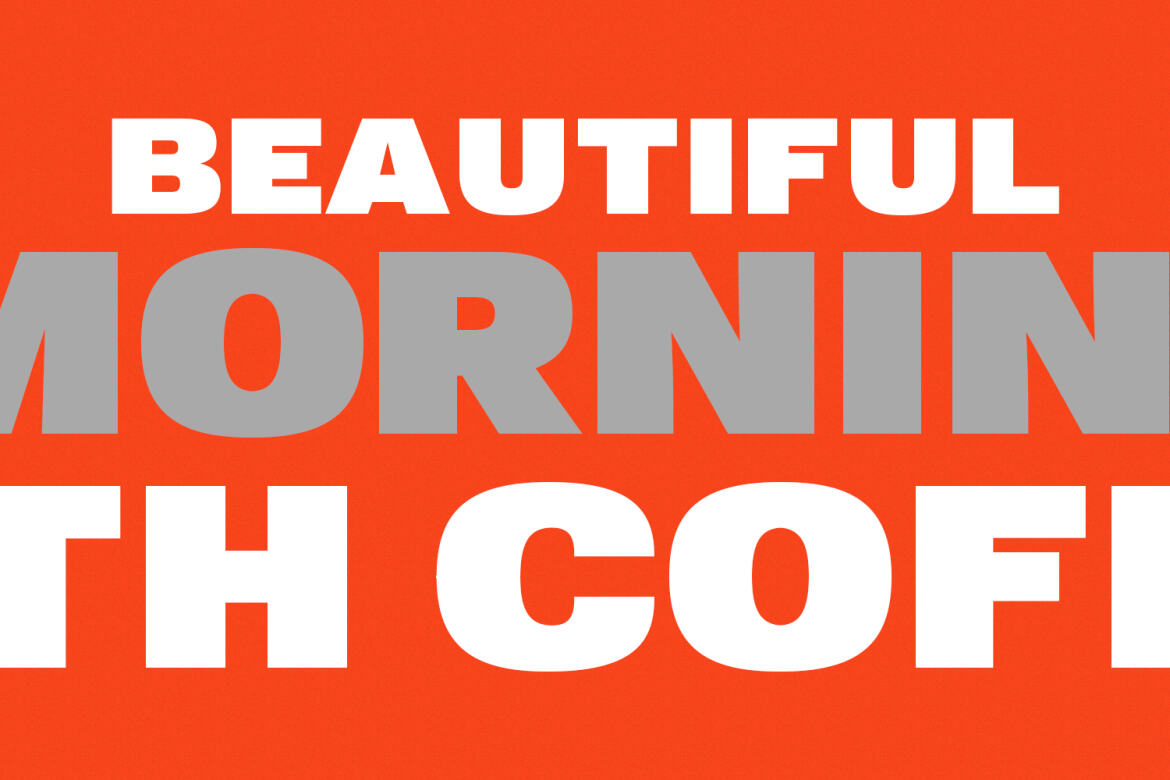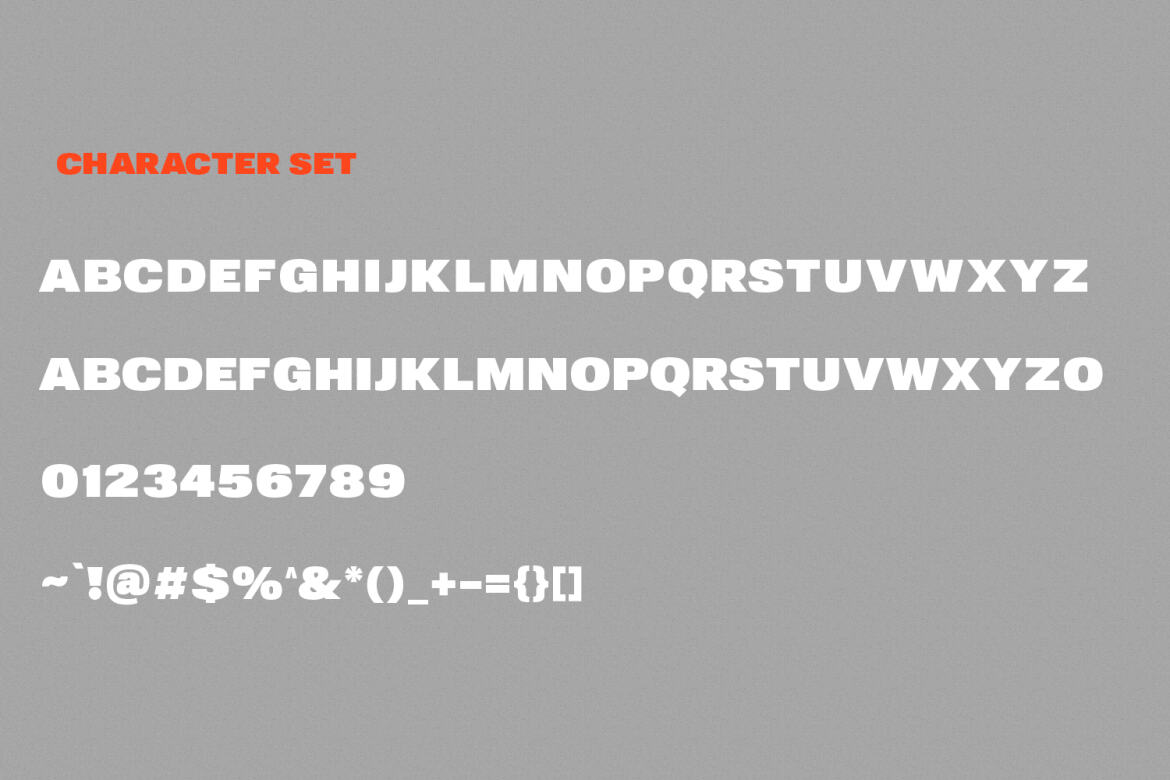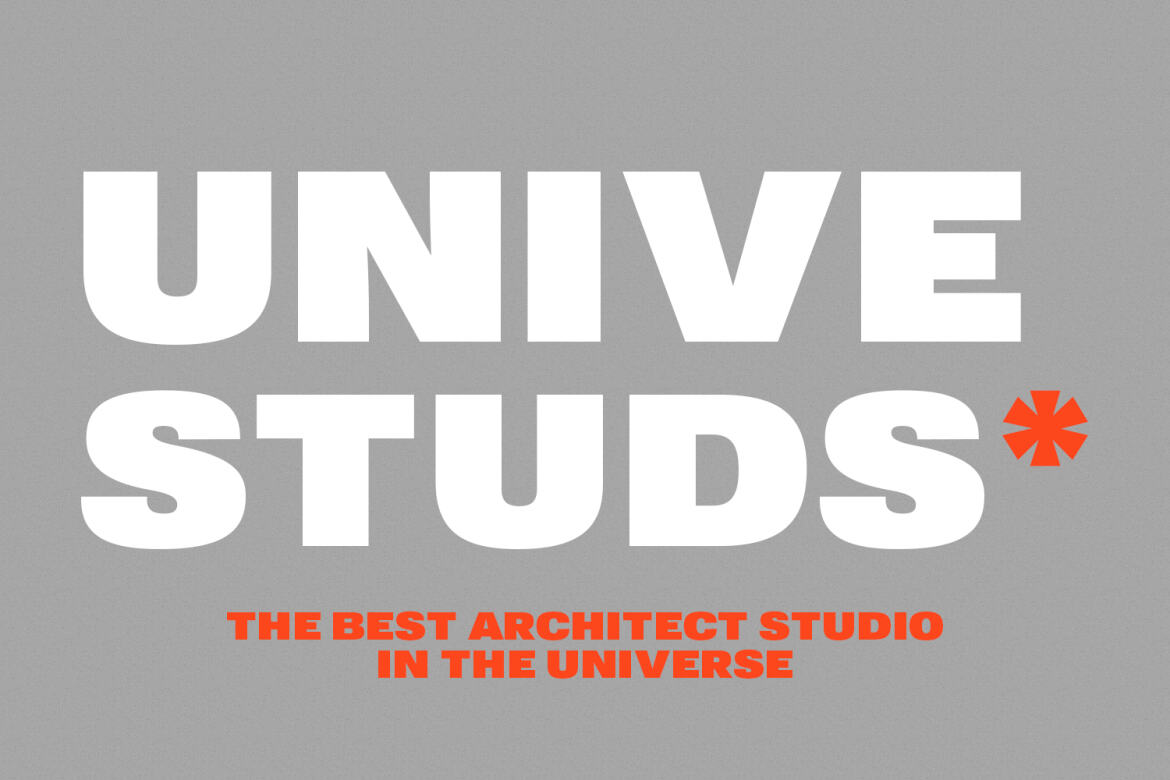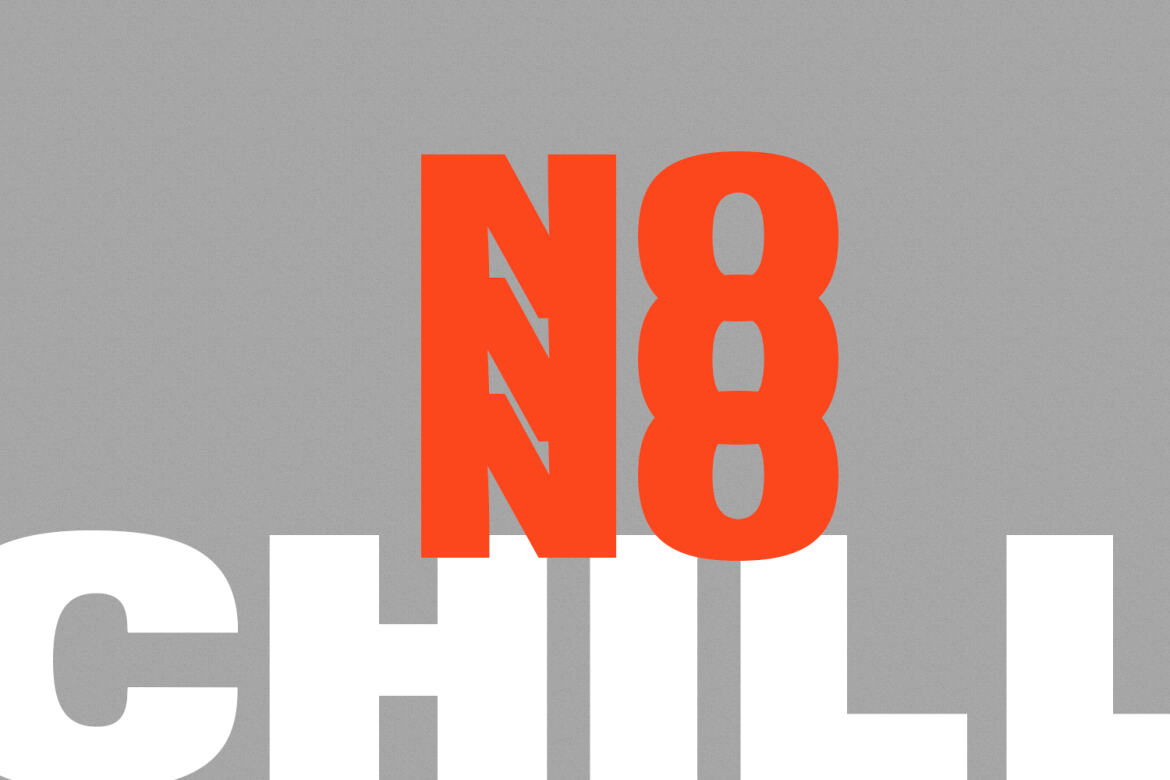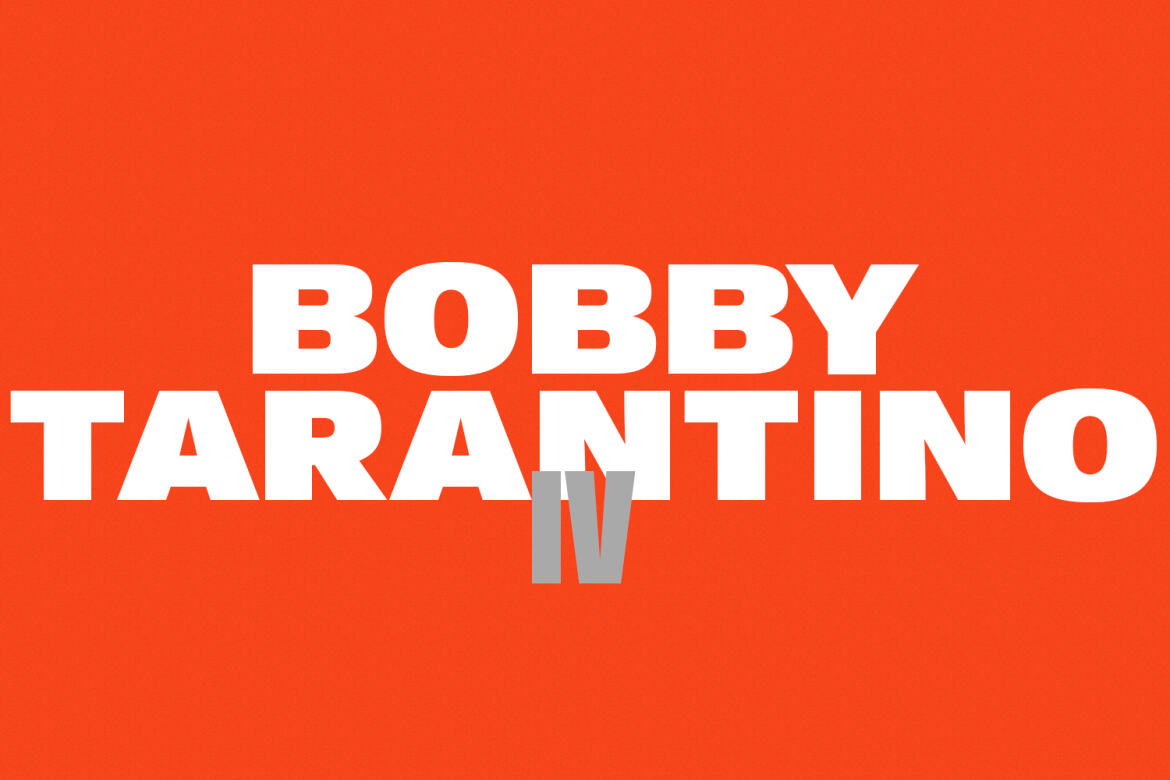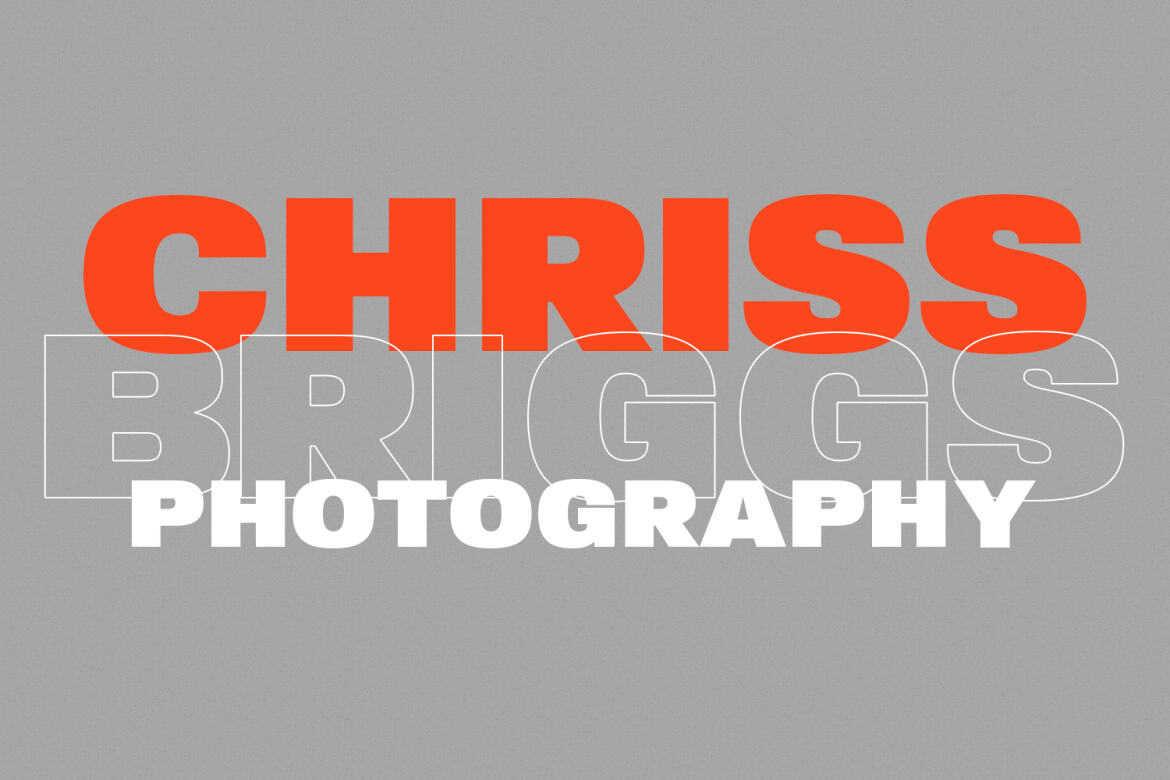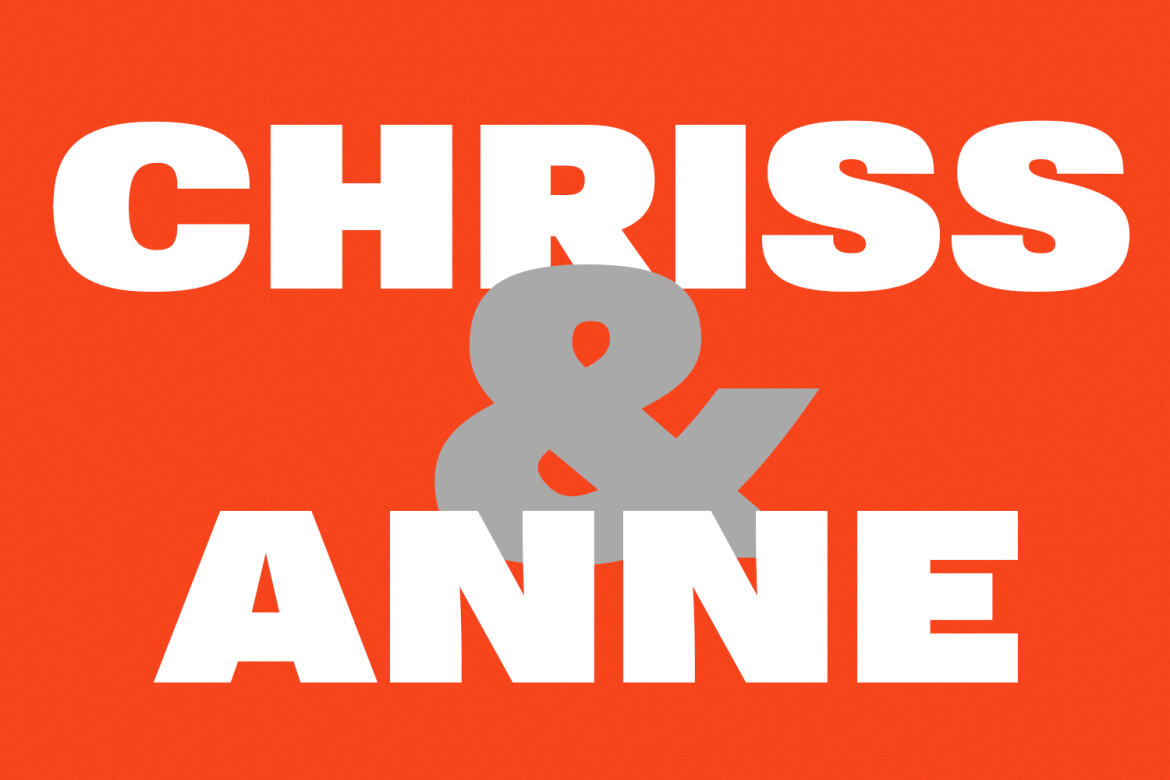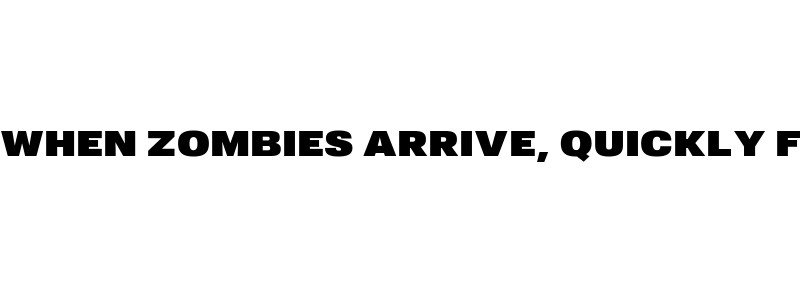
Cogney Sans Serif FREE Font
Cogney Sans Serif FREE Font - view 1
Cogney Sans Serif FREE Font - view 2
Cogney Sans Serif FREE Font - view 3
Cogney Sans Serif FREE Font - view 4
Cogney Sans Serif FREE Font - view 5
Cogney Sans Serif FREE Font - view 6
Cogney Sans Serif FREE Font - view 7
Cogney Sans Serif FREE Font - view 8
Cogney Sans Serif FREE Font - view 9
Cogney Sans Serif FREE Font - view 10
Cogney preview
Cogney
Cogney is an all caps modern sans serif font. With sharp bold stroke, fun character. To give you an extra creative work. Cogney font support multilingual more than 100+ language. This font is good for logo design, Social media, Movie Titles, Books Titles, a short text even a long text letter and good for your secondary text font with sans or serif. Make a stunning work with Cogney font.